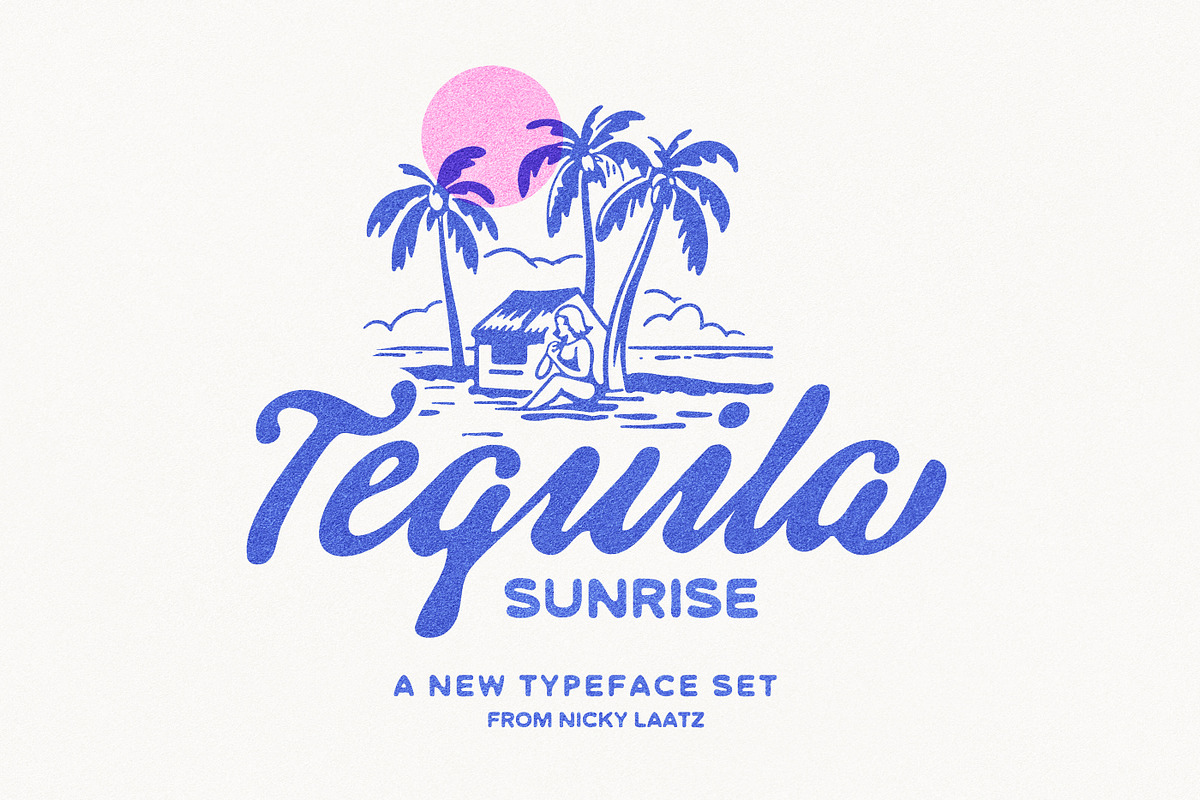
Grab a sunrise‑colored cocktail and step back into a era of carefree creativity. The Tequila Sunrise typeface delivers a lively blend of retro‑modern script and a bold, imperfect sans, giving designers a versatile toolkit that radiates energy, personality, and unmistakable style.
Why Choose Tequila Sunrise?
This font family stands out because it combines dynamic alternates, OpenType ligatures, and multiple style weights within a single package. Whether you need a clean, elegant script for wedding invitations or an ink‑saturated version for edgy branding, Tequila Sunrise equips you with the tools to craft compelling visual narratives.
Script Variations – Clean, Inky, and Extra‑Inky
- Clean Script – A crisp, readable style ideal for formal layouts, greeting cards, and subtle branding.
- Inky 1 – A darker, textured version that adds depth and a handwritten feel, perfect for retro posters and music album covers.
- Inky 2 – The most saturated ink version, delivering maximum contrast for dramatic headlines and night‑life graphics.
Each script variation also includes a slanted counterpart, granting you instant italic styling without sacrificing the integrity of the alternates or ligatures.
Inky Imperfect Sans – Clean, Drop‑Shadow, and More
- Inky Sans – A rugged, imperfect sans that pairs seamlessly with any script version, delivering a balanced, modern aesthetic.
- Sans Drop‑Shadow – An outline‑styled sans featuring a subtle drop‑shadow effect, adding an extra layer of visual interest for titles, badges, and UI elements.
Key Features & OpenType Enhancements
- Alternate Characters – Swap between multiple glyph designs for the same letter, letting you tailor the mood of each word.
- Ligatures – Automatic connections between specific character pairs eliminate awkward spacing and create fluid, continuous text.
- Stylistic Sets – Toggle groups of alternates for quick style changes across entire paragraphs.
- Slanted Versions – Instantly access italicized forms without sacrificing the script’s unique flow.
Practical Usage Tips
Pairing Suggestions: Combine the clean script with a minimal sans‑serif for elegant wedding invitations; mix Inky 2 with bold, geometric headings for night‑life flyers; or use the Sans Drop‑Shadow as a subtle accent on UI buttons or badge icons.
Bring Your Vision to Life